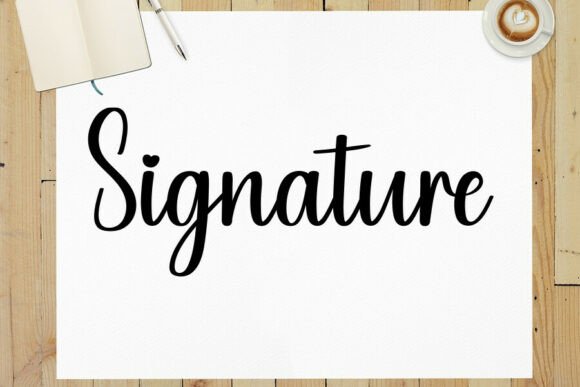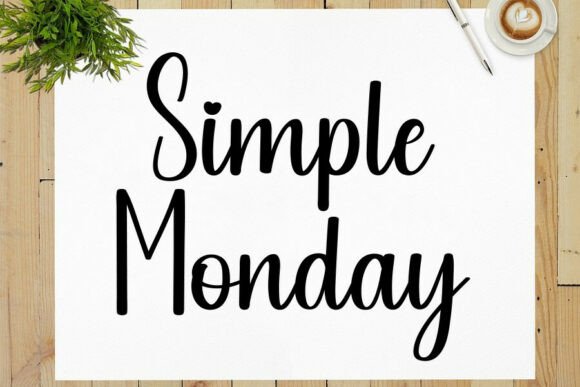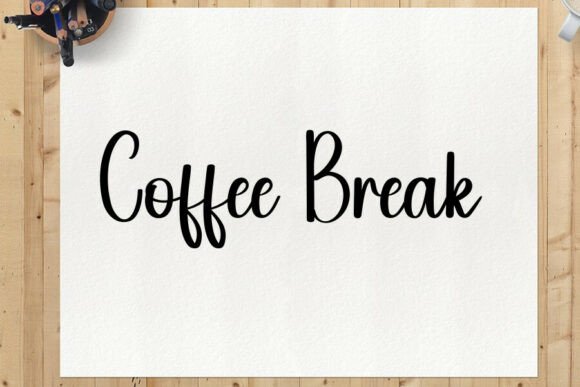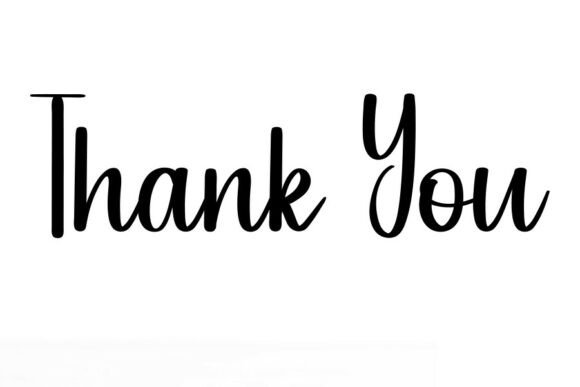
Introducing Darling Font: The Epitome of Elegance and Sophistication
Are you a designer or crafter looking for a font that exudes elegance and sophistication? Look no further than Darling Font, a stunning handwritten font that is sure to elevate your designs to new heights. With its stylish and refined aesthetic, Darling Font is the perfect choice for a wide range of design projects, from wedding invitations and thank you cards to quotes, greeting cards, logos, and business cards.
The Perfect Handwritten Touch
Darling Font is a beautifully crafted handwritten font that adds a touch of warmth and personality to any design. Its elegant strokes and flowing curves make it perfect for designs that require a more personal and human touch. Whether you’re creating wedding stationery, branding materials, or social media graphics, Darling Font is sure to impress.
Key Features of Darling Font
- Stylish and Elegant Design: Darling Font boasts a stylish and elegant design that is sure to turn heads. Its refined aesthetic makes it perfect for high-end designs and luxury brands.
- Wide Range of Uses: Darling Font is versatile and can be used for a wide range of design projects, including wedding invitations, thank you cards, quotes, greeting cards, logos, business cards, and more.
Why Choose Darling Font?
So why choose Darling Font over other fonts? Here are just a few reasons:
- Unique and Eye-Catching: Darling Font is a unique and eye-catching font that is sure to stand out in a crowded design landscape.
- Easy to Use: Darling Font is easy to use and customize, even for designers who are new to working with handwritten fonts.
- High-Quality Design: Darling Font is a high-quality design that is sure to impress even the most discerning clients.
Tips for Using Darling Font
Here are a few tips for using Darling Font in your designs:
- Pair with Other Fonts: Darling Font pairs well with other fonts, including serif and sans serif fonts. Experiment with different pairings to find the one that works best for your design.
- Use for Headlines and Titles: Darling Font is perfect for headlines and titles, where its elegant and refined aesthetic can really shine.
- Experiment with Colors: Darling Font looks great in a wide range of colors, from classic black and white to bold and bright hues. Experiment with different colors to find the one that works best for your design.